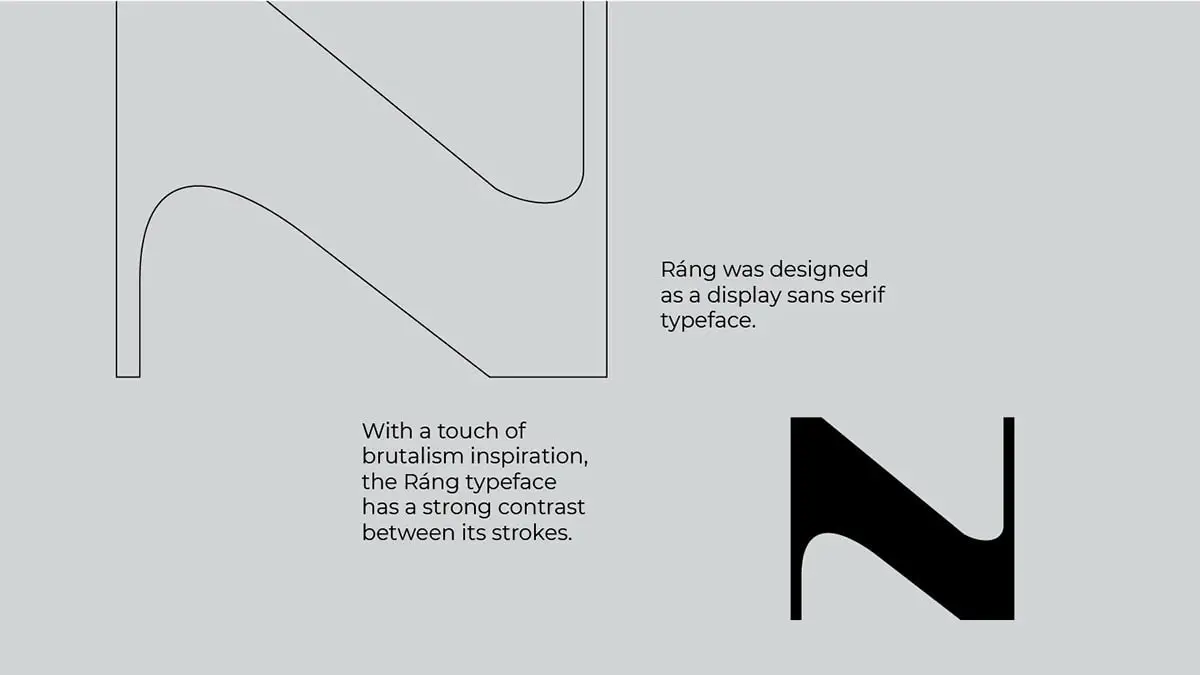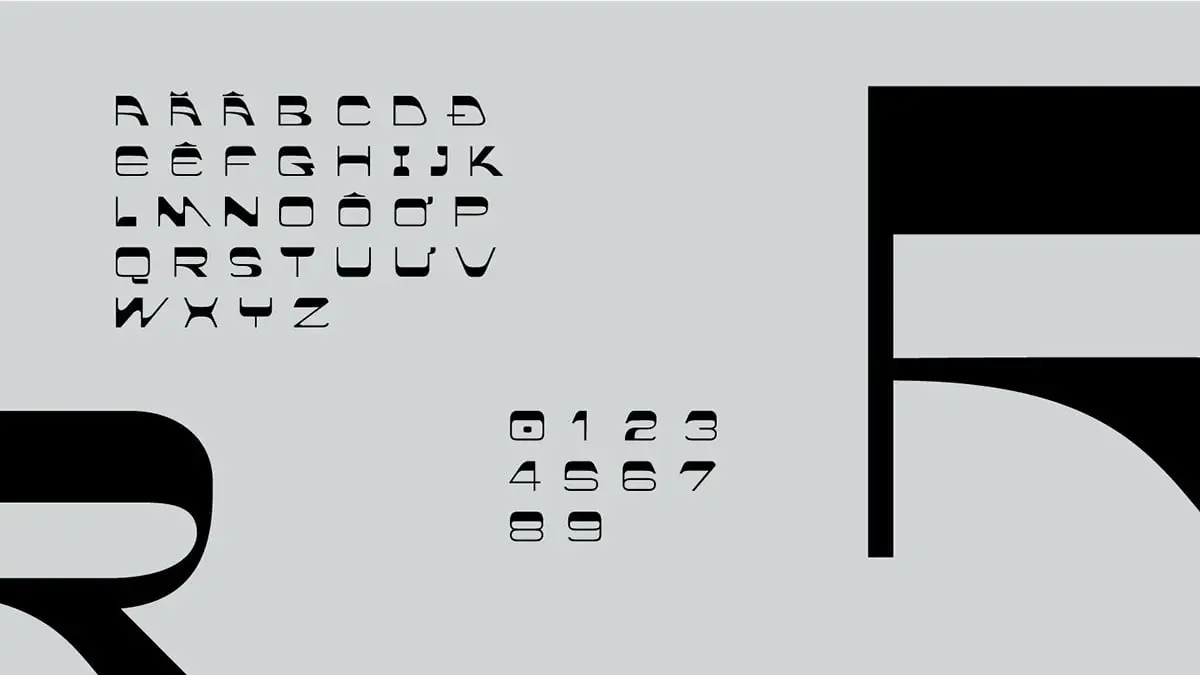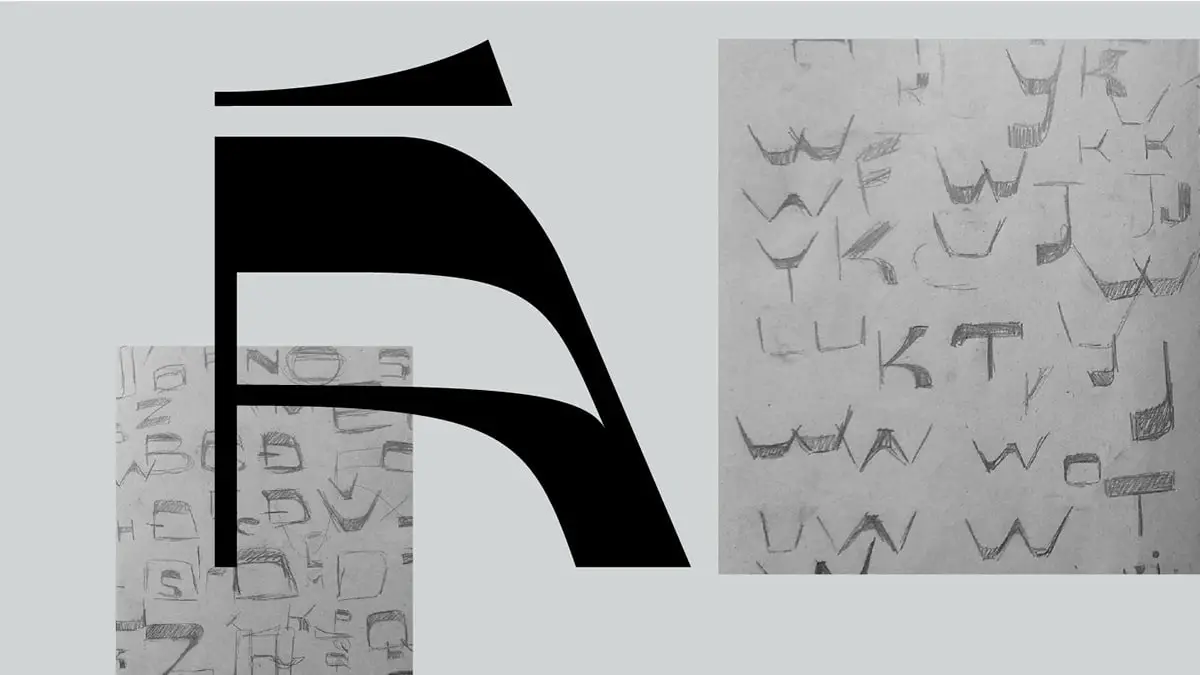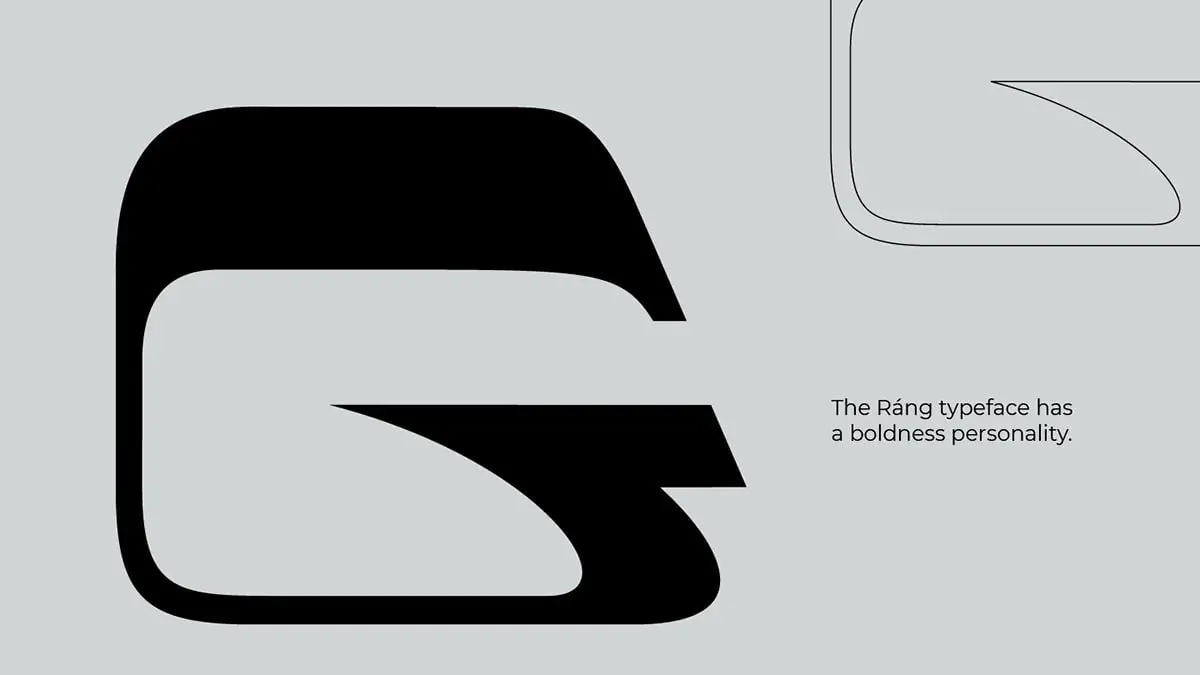
Rang Typeface 1 016 Free Font By Koi Reo
The Rang Typeface 1 016 is a modern and versatile free font designed by Koi Reo. With its unique character shapes and clean lines, this typeface is perfect for a variety of design projects.
• Multiple weights for flexibility
• Great for both web and print applications
• Use in UI design for a modern touch